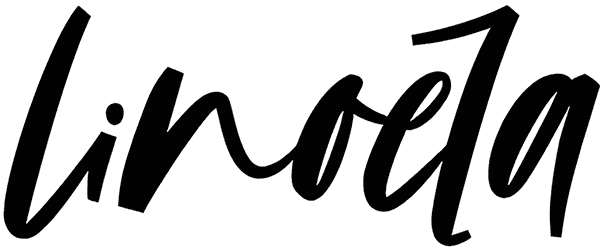
Kingdom Heaven Font
It will not be hard to give a realistic and soft vibe to your creative design if you set this handwritten font on your text. This postcard font has a beautiful and captivating mood, and you can use it for any classic or modern design that you want. Apply the Kingdom Heaven font to your Christmas event invitation flyer, or so on, and make them artistic.
Designed by: Hatf Type